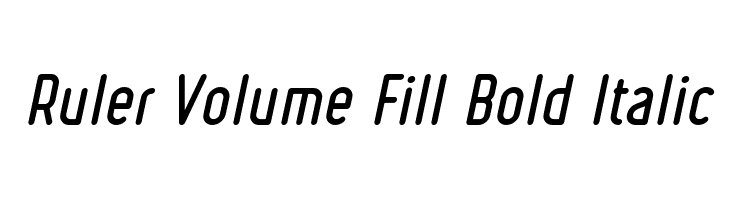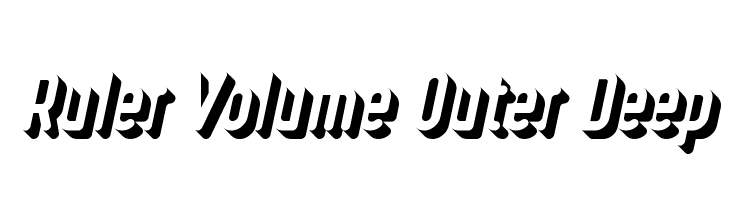
A bold, italicized, and modern font with a sleek, condensed style.
A bold, italicized font with a 3D shadow effect, perfect for dynamic and modern designs.
A bold, 3D-effect font with slanted, dynamic characters.
A bold, slanted font with a 3D effect and dynamic style.